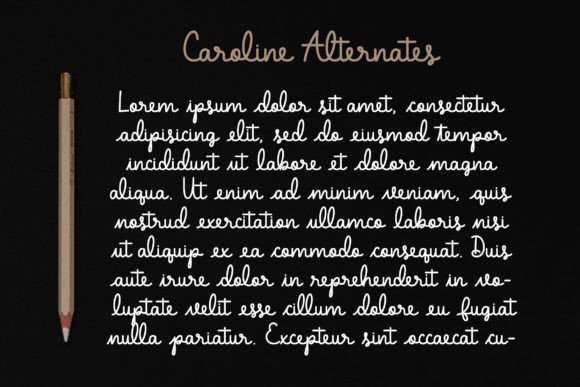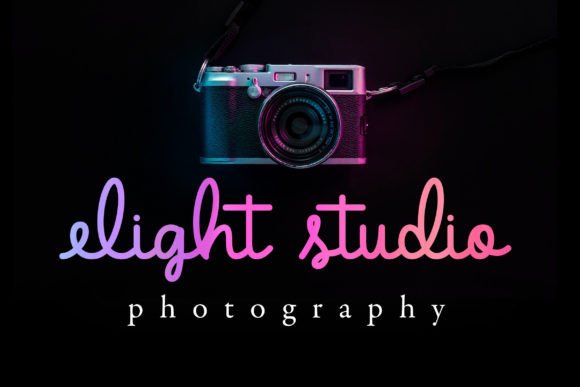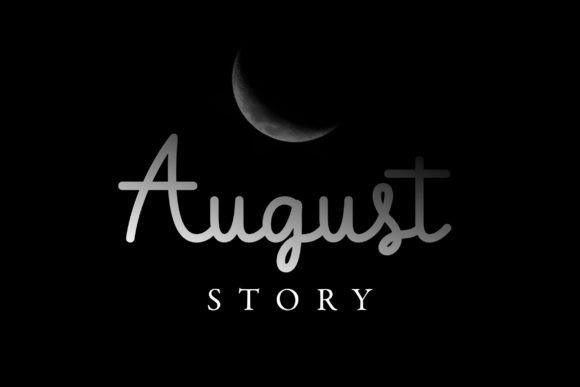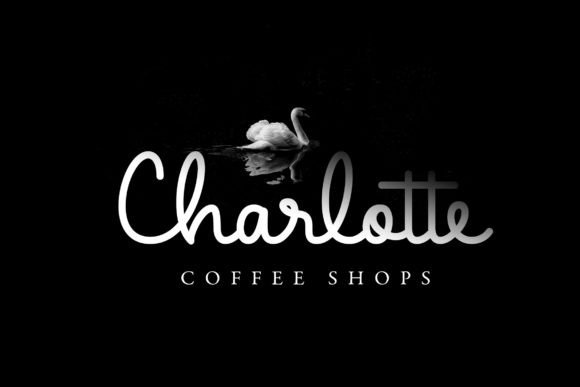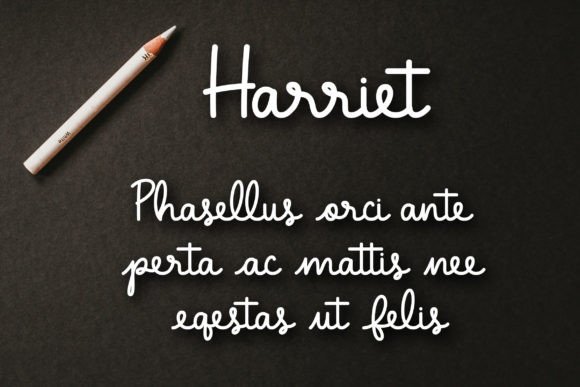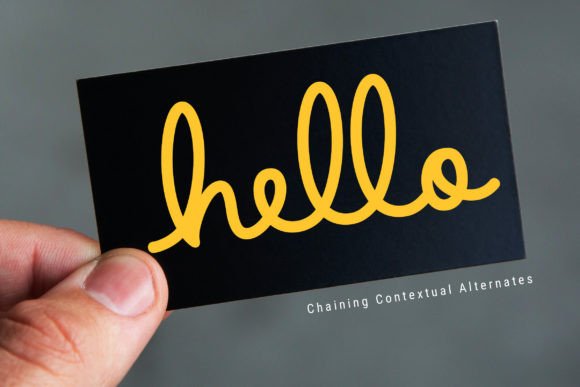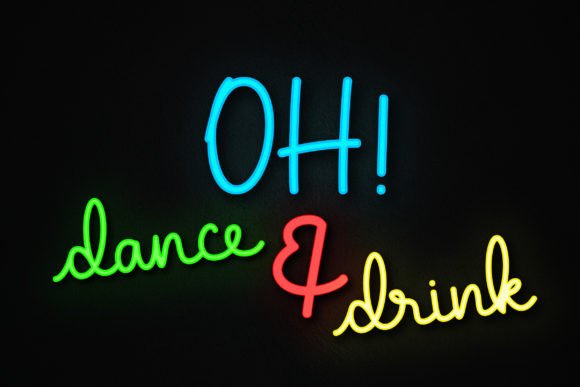
About Caroline Font
Caroline is a stylish and smooth monoline script font. It has a classy, elegant, and modern look that can be used for logos, branding, invitations, stationery, wedding designs, social media posts, and much more!